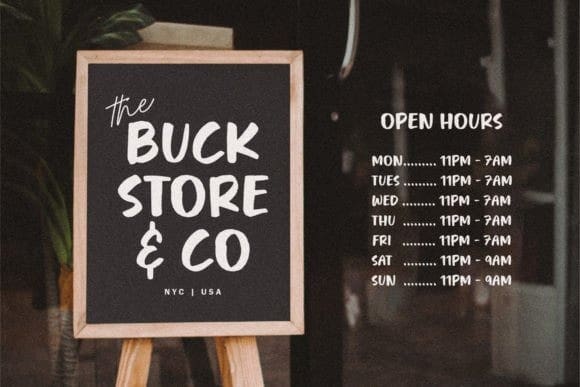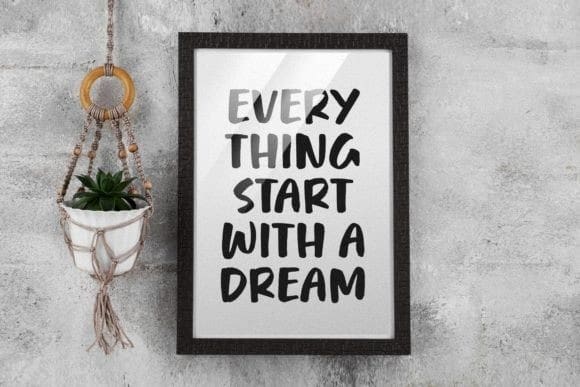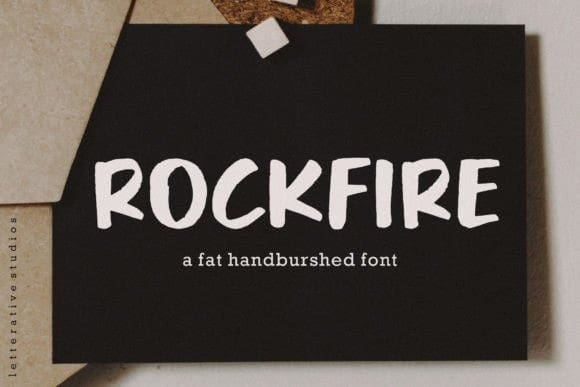
Rockfire Brush Font
Rockfire Brush Font is a fun and unique handwritten font. Bold, assertive, yet still maintaining a friendly touch, this font will be a wonderful asset to your font library.